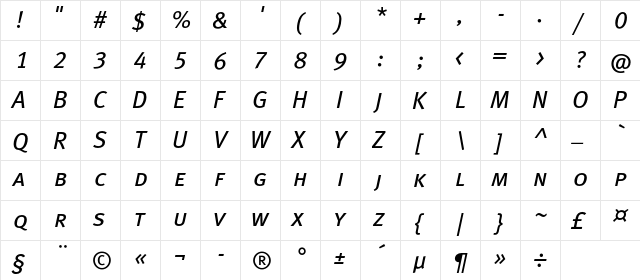
MetaBookCapsLFC Italic
Design Context for MetaBookCapsLFC Typeface
MetaBookCapsLFC takes a measured approach to typography — its balanced proportions and neutral character make it a reliable workhorse for both digital and print work. Its italic angle brings a sense of urgency and motion to the letterforms.
Pro Tip: Try MetaBookCapsLFC for annotation and caption copy alongside an upright companion — the contrast in angle creates a dynamic but ordered typographic system.